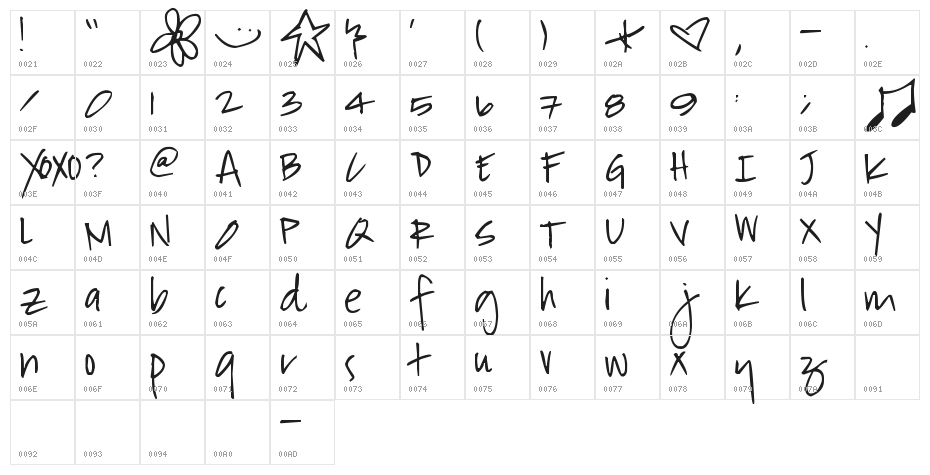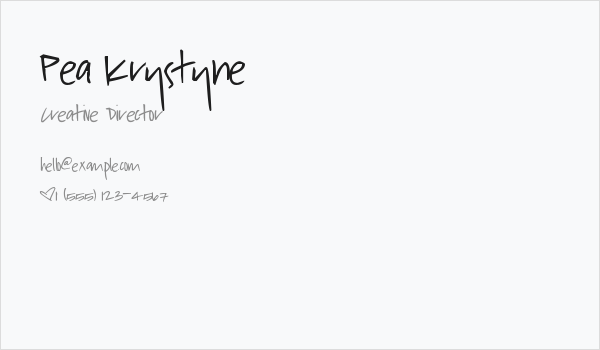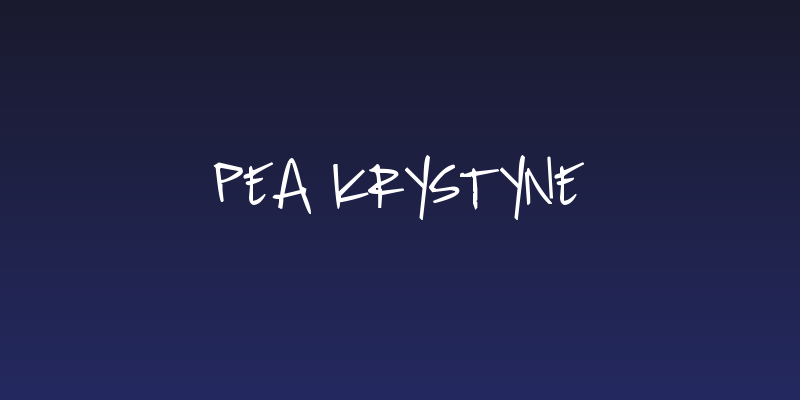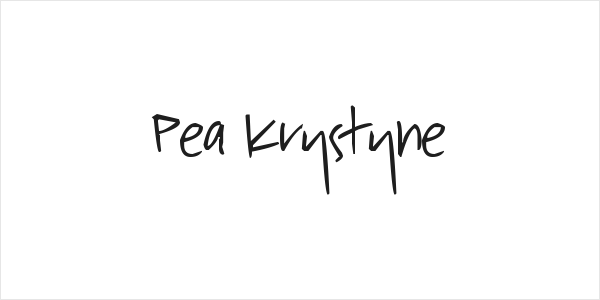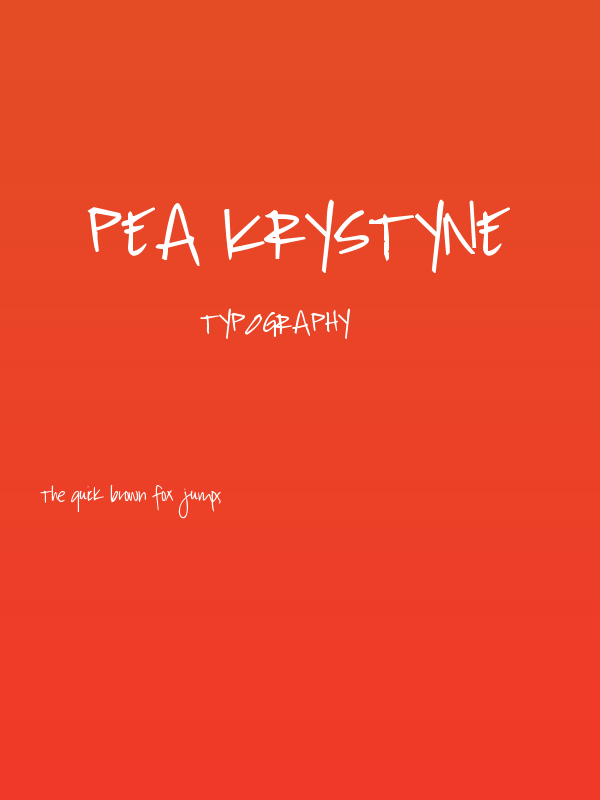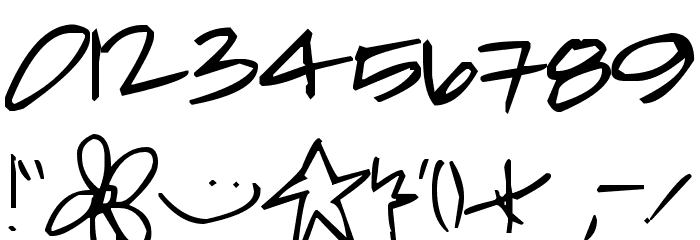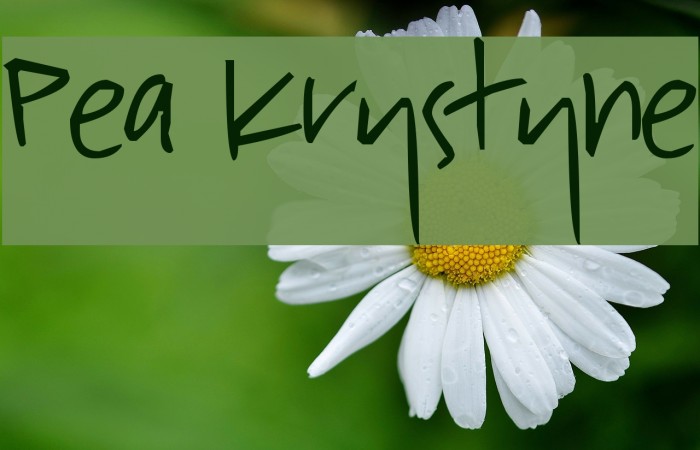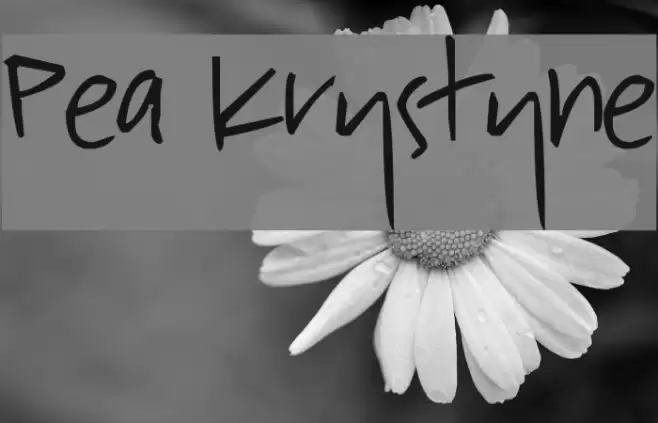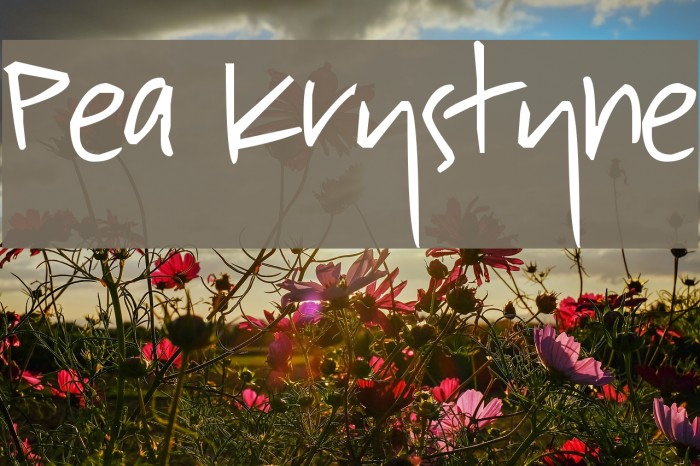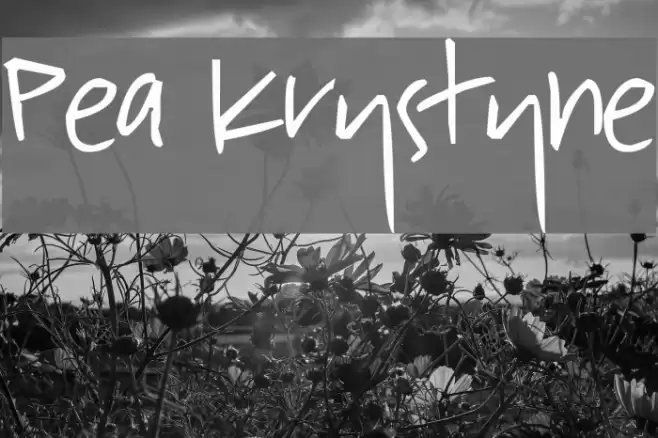
Pea Krystyne Font
Pea Krystyne Description
This font exudes a playful and casual handwritten style, characterized by its loose and informal strokes. The letters are slightly slanted, giving it a dynamic and lively appearance. The uppercase and lowercase letters maintain a consistent flow, while the numbers and special characters add a whimsical touch. The overall design is reminiscent of a personal note or a quick sketch, making it ideal for projects that require a friendly and approachable feel.
| Overall Style | Casual |
| Use Case | Headlines, Informal text, Personal notes |
| Proposed Projects | Ideal for greeting cards, personal notes, informal invitations, and playful branding projects. |